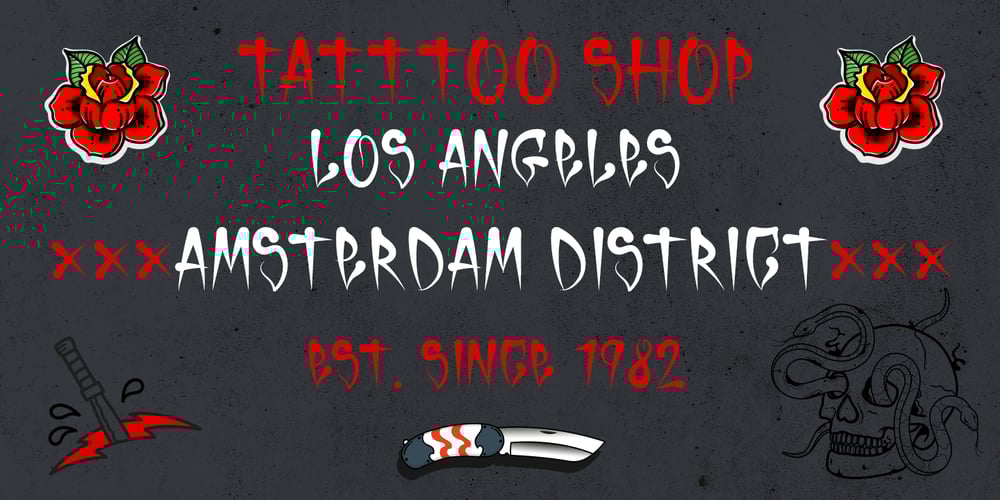
Horror Graffiti Cholo
Horror Graffiti Cholo font
Horror Graffiti Cholo Font Family was designed by Roberto Sofi and published by Biroakakarati. Horror Graffiti Cholo contains 1 styles and family package options. This handwritten font is inspired by the cholo calligraphy of graffiti artists. It has a scary design, which is suitable for horor film posters and at the same time for signs and tattoo designs. It has an original style an effect font also available in a color version with drops of blood or paint to give a more lively touch. Try using it for your halloween party invitations or for your tattoo designs, for scary greeting cards.I used the word “Cholo” because this lettering in inspired by cholo-graffiti culture in Los Angeles in 70’s years. The one of the best rappresent is Charles “Chaz” Bojorquez the father of cholo-lettering. Cholo because i think that in 70’s in Los Angeles neighborhoods where graffiti-culture grow up there was a persons whit a mixed multicultural connexion and Chaz is one of them. Cholo-graffiti or Cholo-lettering is a specifing style o lettering. I think this is a good keyword for this lettering.